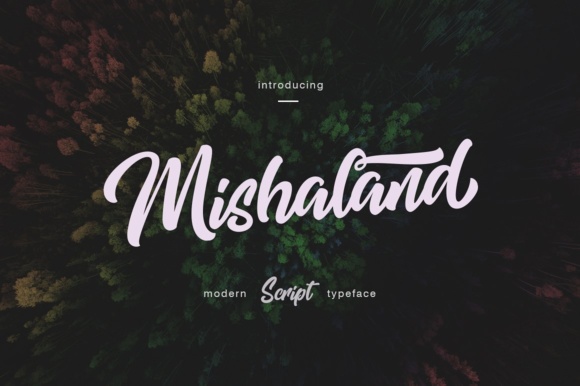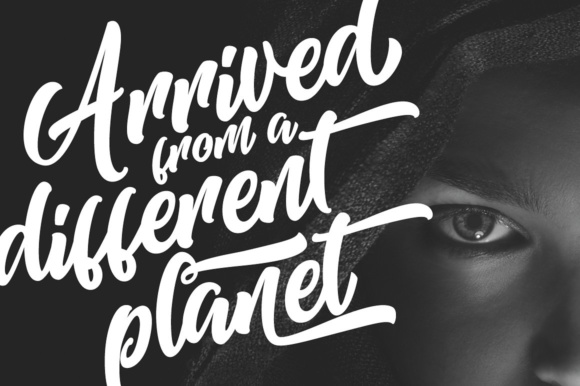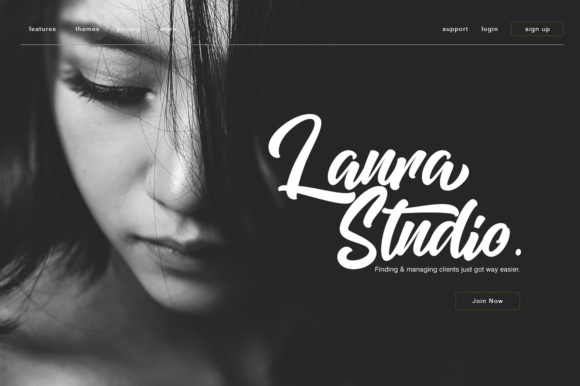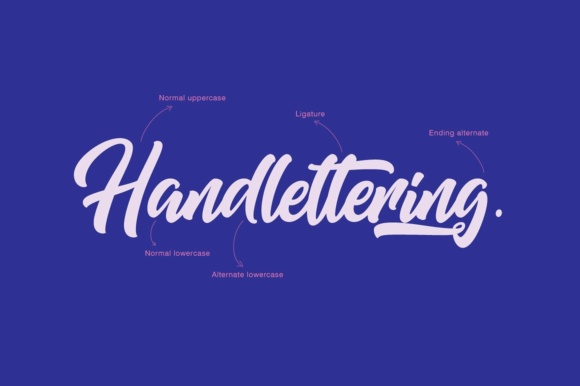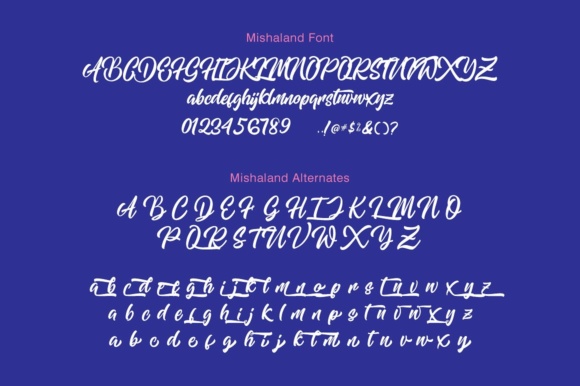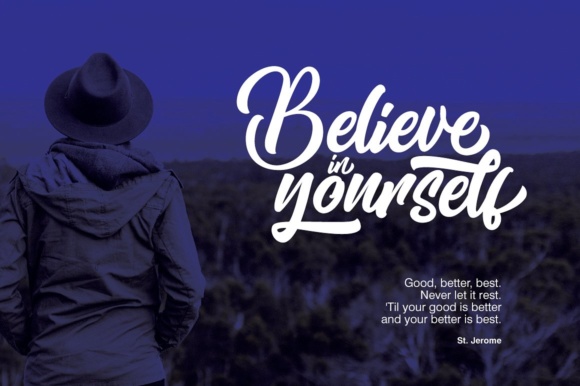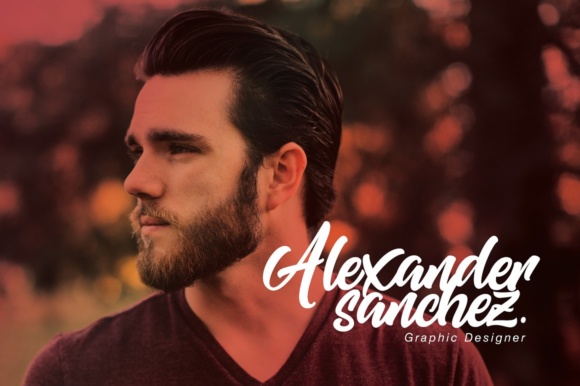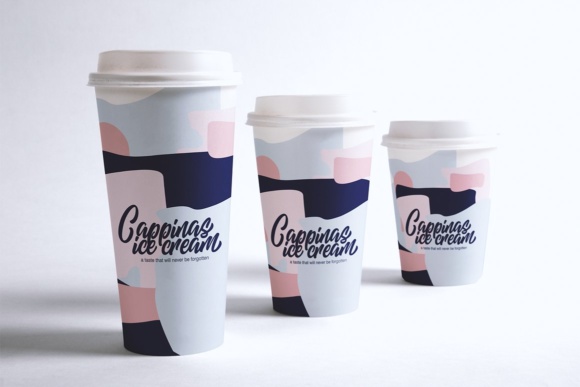
HomeScript FontsMishaland Font Script Fonts Mishaland Font FacebookXPinterestWhatsApp Mishaland Font Poster 2 Mishaland Font Poster 3 Mishaland Font Poster 4 Mishaland Font Poster 5 Mishaland Font Poster 6 Mishaland Font Poster 7 Mishaland Font Poster 8 About Mishaland Font The Mishaland is a modern script typeface. It has bold, striking letters which will make your design stand out! DOWNLOAD NOW People also explored Belasiara Font Suti Rosestaly Font Cantina Fresca Regular Marahaban Font Sorry Dear Font Ralline Font Sunday Anggry Font Valentines Bird Monogram Font 285 0 TagsMishaland Font Previous articleWest Cousin FontNext articleRaymond Font LEAVE A REPLY Cancel reply Comment: Please enter your comment! Name:* Please enter your name here Email:* You have entered an incorrect email address! Please enter your email address here Website: Save my name, email, and website in this browser for the next time I comment. Personal Use Free Helsinki Personal Use Free Read more about this font Husky Stash Personal Use Free Read more about this font Planet Benson 2 Personal Use Free Read more about this font Cottage Personal Use Free Read more about this font BLOG Transform Your Website: Elevate Your Typography with 7 Best Web Font Generators Are you ready to transform your website's typography from ordinary to extraordinary? Great! Today, we're diving into the world of web font generators, which... Top 7 Google Fonts Alternatives for Faster and Privacy-Friendly Web Design (2025) Elegant Wedding Invitation Fonts – Handwritten & Script Fonts Exploring Font Trends